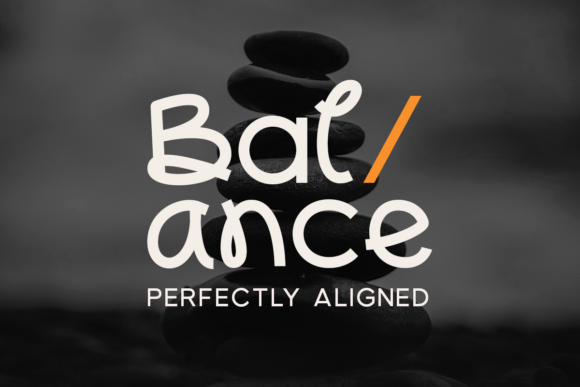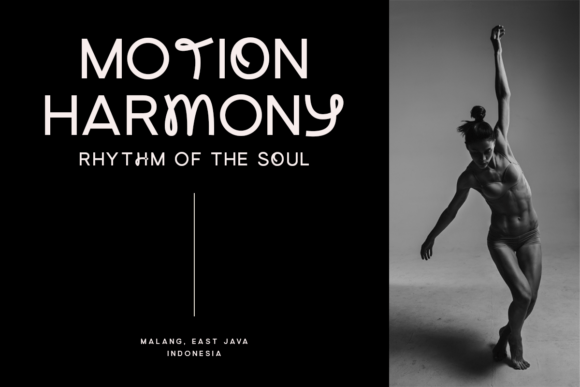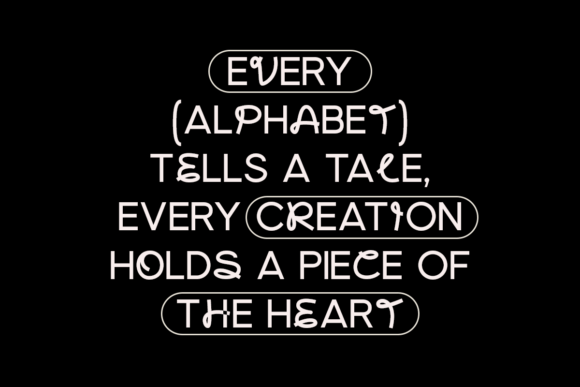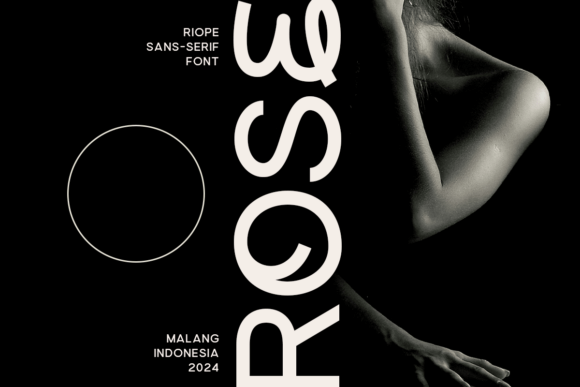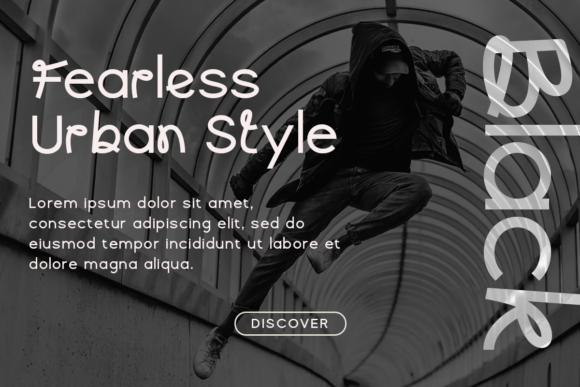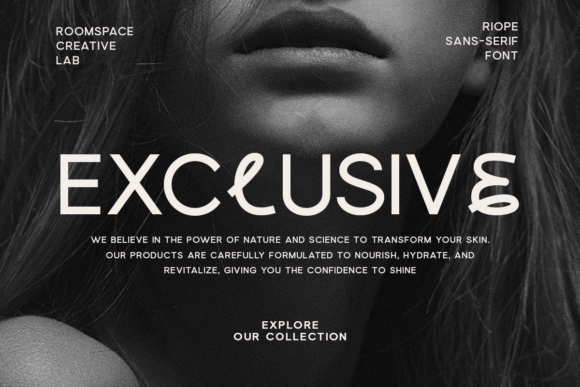
Introduction to Riope Font
As a designer, have you ever found yourself staring at a blank canvas, waiting for the perfect font to bring your creative project to life? You know the feeling – the one where you’re torn between a sea of options, each promising to elevate your design, but ultimately leaving you wondering if you’ve made the right choice. This is where the Riope Font comes in – a modern sans serif font that delivers perfect letter balance, guaranteed to take your design to the next level.
With its unique blend of modern and futuristic styles, Riope Font offers a refreshing twist on traditional typography, making it the perfect addition to any design resource. Whether you’re working on a branding project, creating a logo, or designing a poster, this versatile font is sure to impress. And the best part? You can enjoy high-quality results without breaking the bank – the Riope Font is available for free download, making it an accessible design solution for creatives of all levels.
But what truly sets Riope Font apart is its exceptional flexibility. With modified character styles and alternate characters inspired by monoline scripts, you’ll have endless possibilities to experiment and create something truly unique. Whether you’re a seasoned designer or just starting out, the Riope Font is a valuable addition to your design toolkit, offering a transparent background for your creative vision to shine through.
Riope Font
- High-quality, professional font suitable for various creative projects, including logos, branding, and advertising materials.
- Features a unique, modern design with a clean and minimalist aesthetic, making it ideal for contemporary creative projects.
- Has a large character set, including uppercase and lowercase letters, numbers, and punctuation marks, allowing for a wide range of design possibilities.
Honest Review: Riope Font
As a designer, I’m always on the lookout for high-quality design resources that can elevate my creative projects. Recently, I stumbled upon the Riope Font, and I’m excited to share my honest review.
- ✨ High-quality glyphs: The Riope Font boasts beautiful, intricate designs that make it perfect for creative projects.
- ⚠️ Limited language support: Unfortunately, the Riope Font only supports a limited number of languages, which may be a drawback for designers working on multilingual projects.
- ⚠️ Not ideal for small text: Due to its intricate design, the Riope Font may not be the best choice for small text or titles.
Overall, I’m impressed with the Riope Font’s high quality and versatility. While it may have some limitations, it’s a great addition to any designer’s toolkit, and I highly recommend it for creative projects that require a unique, elegant touch.
Riope Font
The Riope Font is perfect for:
- Creating visually appealing logos and branding materials.
- Designing high-quality graphics for social media and marketing campaigns.
- Adding a touch of elegance to presentations and documents.